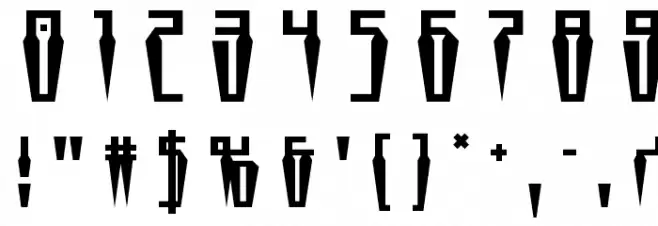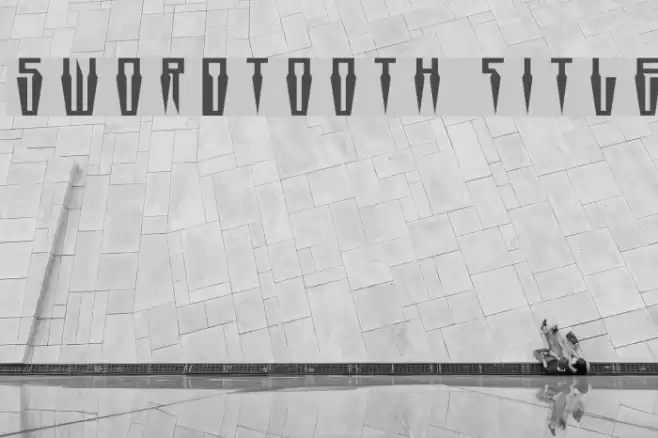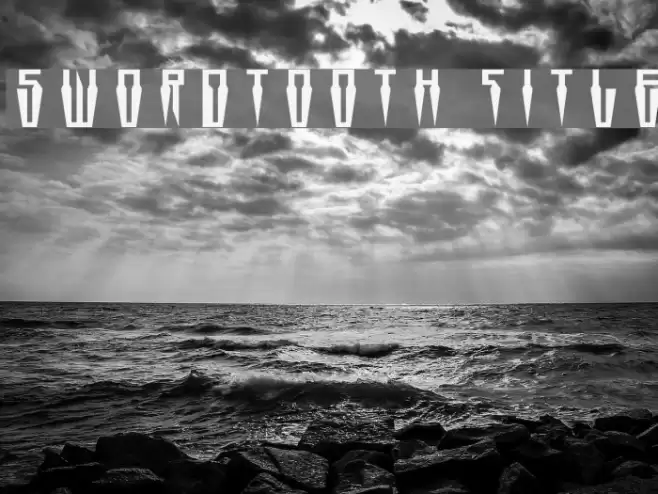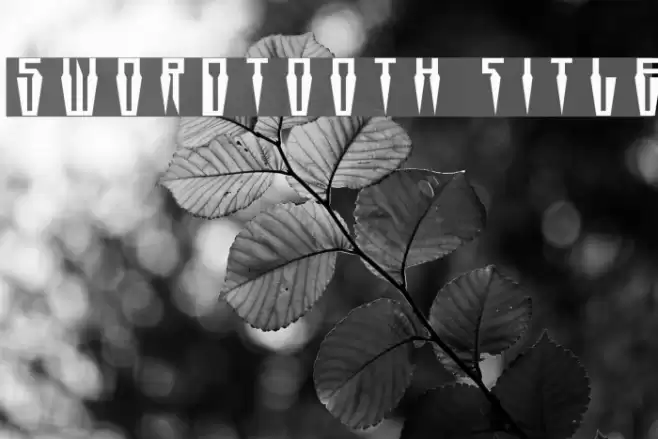
Swordtooth Title Font
Swordtooth Title Description
This font features a bold, angular design with sharp, pointed edges reminiscent of blades or teeth, giving it a fierce and aggressive appearance. The characters are constructed with a strong geometric influence, emphasizing vertical lines and sharp angles. Each letter and number is distinct, with a consistent style that maintains readability despite its decorative nature. The font's unique style is particularly evident in its uppercase letters, which dominate with their imposing presence. The lowercase letters follow the same design principles, ensuring uniformity across the typeface. The numerals and special characters are equally stylized, maintaining the font's overall aesthetic. This font is ideal for projects that require a strong, impactful visual statement.
A bold, angular font with sharp, blade-like edges and a strong geometric influence from Uncategorized fonts.
• Proposed Projects: Ideal for video game titles, movie posters, branding for edgy products, or any design requiring a bold, aggressive look.
• Contrast: High
• Overall Style: Modern, Decorative
• Use Case: Headlines, Logos